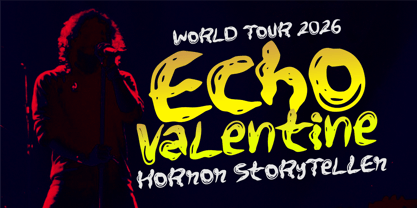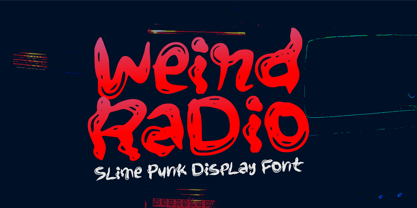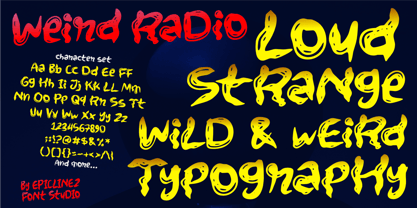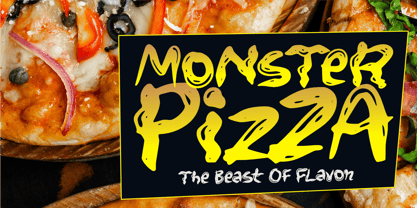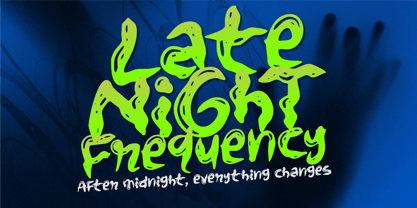
Weird Radio
by Epiclinez
The Weird Radio Font Family was designed by Aldy Sidik and published by Epiclinez. Weird Radio contains 1 styles. More about this family
Weird Radio is a bold and chaotic display font inspired by underground radio stations, distorted frequencies, punk culture, and retro horror aesthetics. Featuring gooey letterforms, melting shapes, and experimental curves, this typeface delivers a loud visual impact perfect for posters, music covers, streetwear branding, movie titles, gaming designs, YouTube thumbnails, album artwork, stickers, and rebellious creative projects. Its weird, grungy, and playful personality makes Weird Radio the perfect choice for designers looking to create edgy, alternative, and unforgettable typography with a strong underground vibe.
Designers: Aldy Sidik
Foundry: Epiclinez